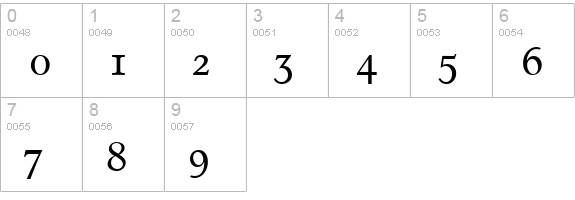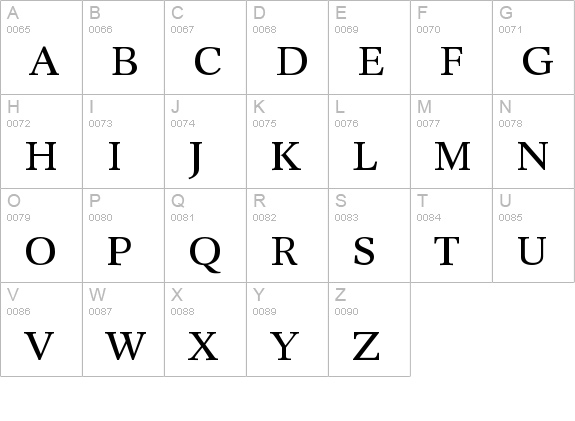
C790-Roman-Smc-Regular Font Details
C790-Roman-Smc-Regular is the standard, neutral variant in the C790 typeface family \xE2\x80\x94 well suited to general body text, paragraphs, and standard typographic work.
C790-Roman-Smc-Regular font is a versatile and stylish typeface that exudes elegance and sophistication. Its sleek and modern design makes it perfect for a wide range of design projects, from branding to editorial layouts. The clean lines and classic proportions of this font give it a timeless appeal that is sure to enhance any project it is used in. What makes C790-Roman-Smc-Regular font even more appealing is the fact that it is available for free download at FontsMarket.com. This means that you can easily access and use this high-quality font in your projects without any cost. Whether you are a professional designer or a hobbyist, C790-Roman-Smc-Regular font is a valuable addition to your font collection. Download it today and elevate your designs with this beautiful and free typeface.